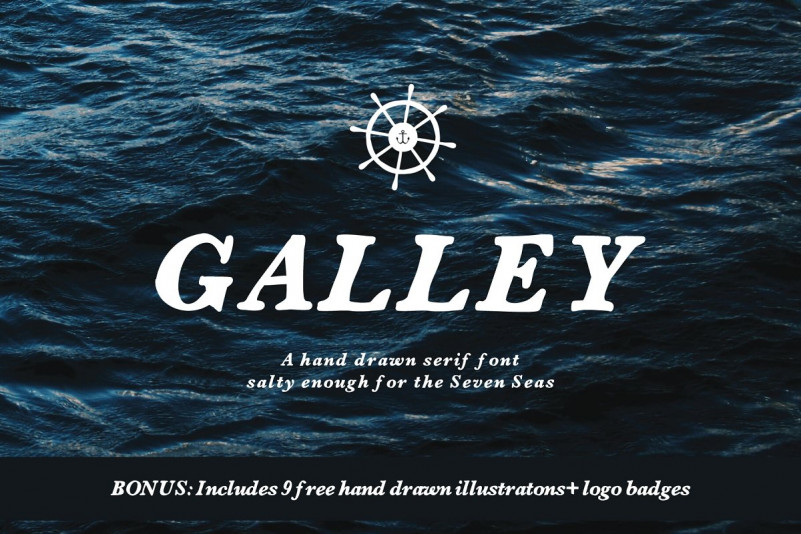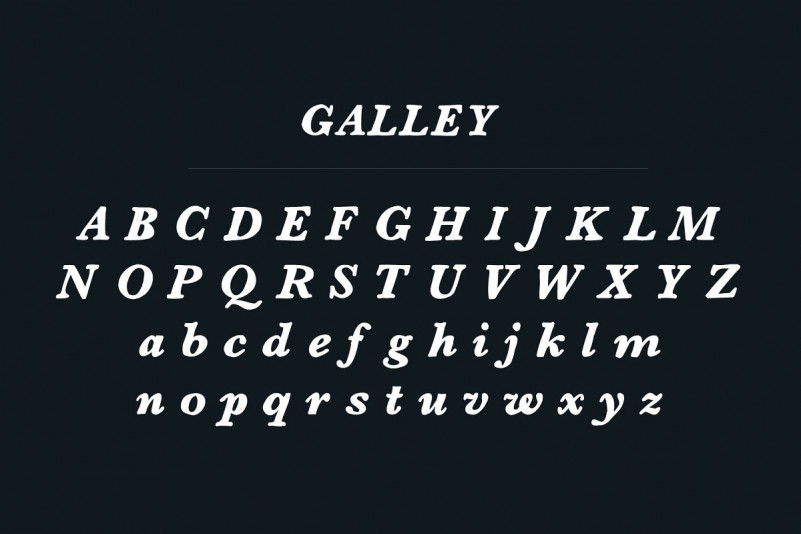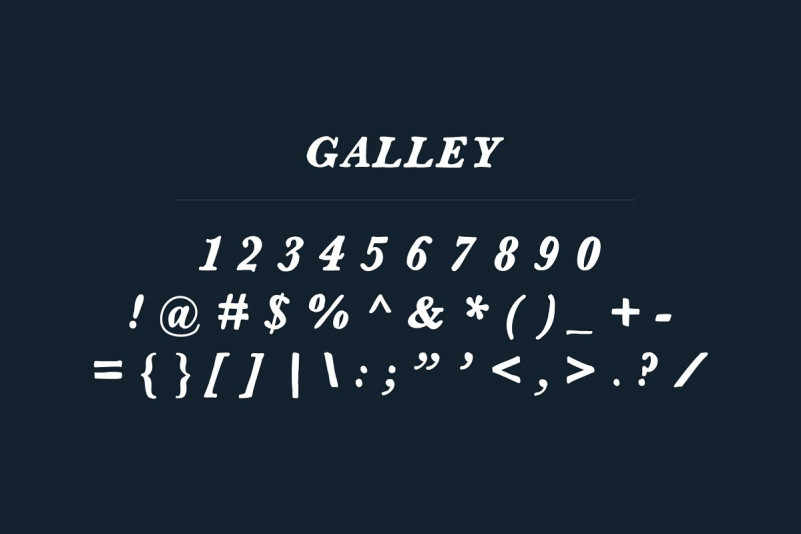
Galley Font + Logo Badges
GALLEY A hand drawn serif font salty enough for the Seven Seas
Inspired by the waves of a dark and endless ocean, this hand-drawn serif font is great for display and paragraph text.
Also included is 9 hand drawn illustrations to use with Galley Font, as well as 5 custom logos created with Galley and the illustrations included.